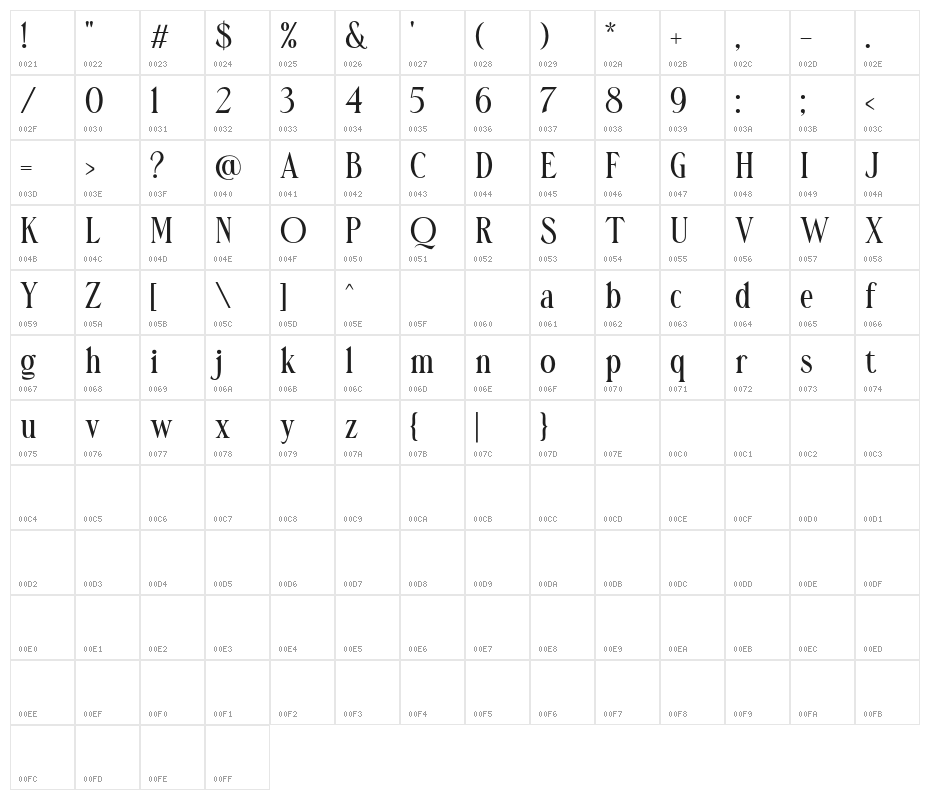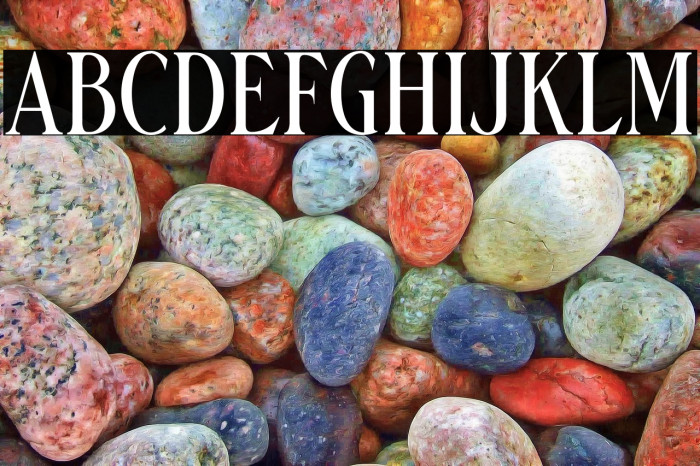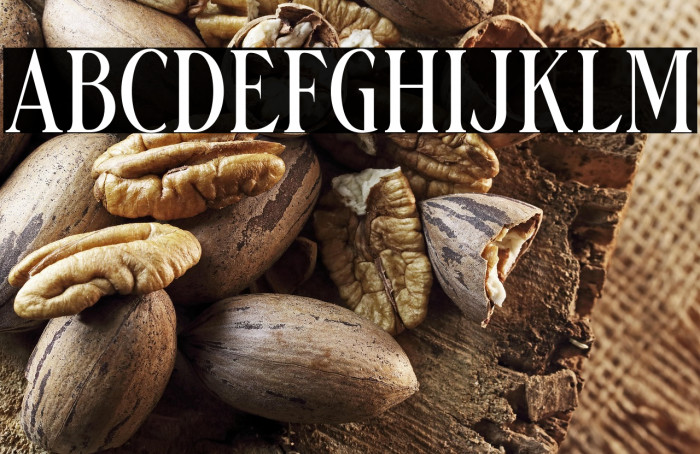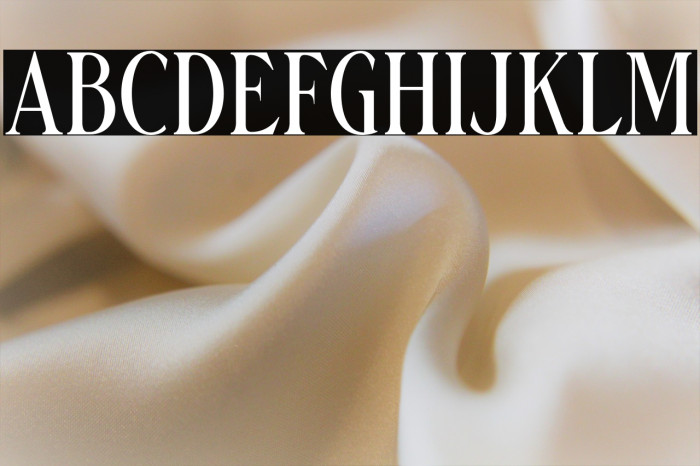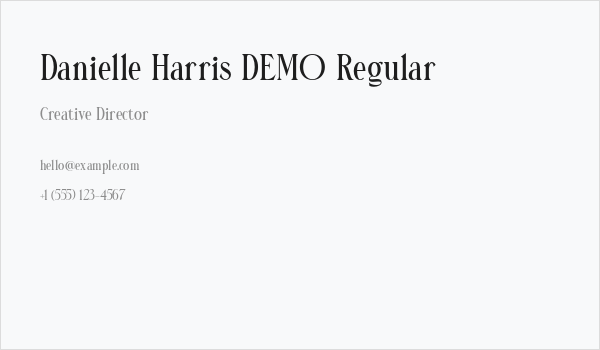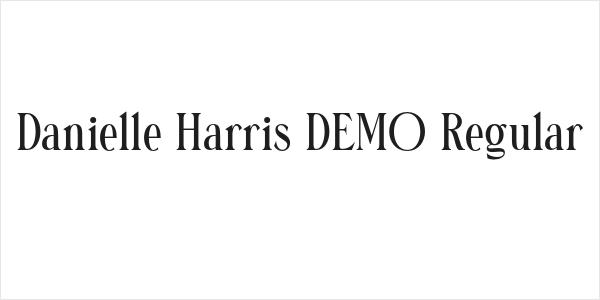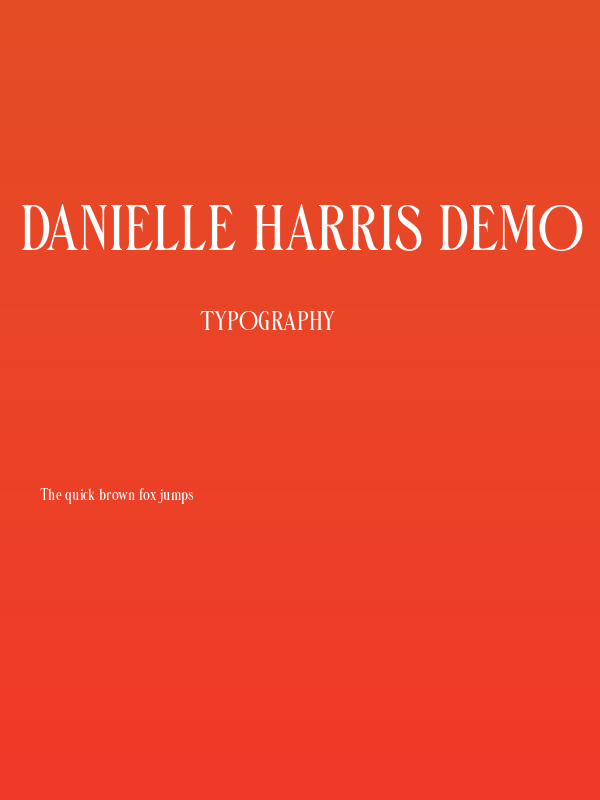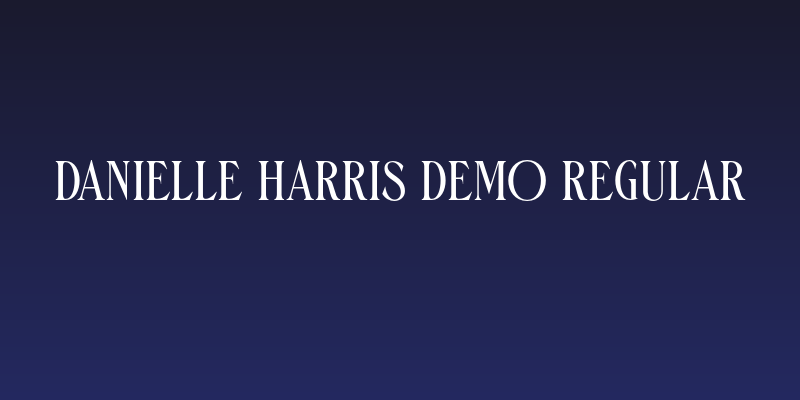
Danielle Harris DEMO Regular Font
Danielle Harris DEMO Regular Description
This font features a classic serif style with elegant, elongated strokes and a refined appearance. The uppercase letters are tall and commanding, while the lowercase letters maintain a balanced and harmonious look. The numerals are clear and distinct, making them easy to read. Special characters are well-integrated, maintaining the font's overall sophisticated aesthetic. The design is reminiscent of traditional serif fonts but with a modern twist, making it versatile for various applications.
| Proposed Projects | Ideal for editorial design, book covers, formal invitations, and branding projects that require a touch of elegance and sophistication. |